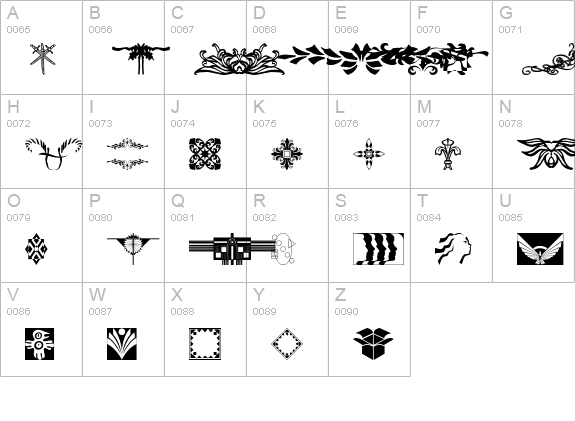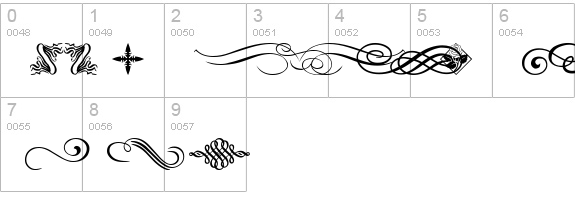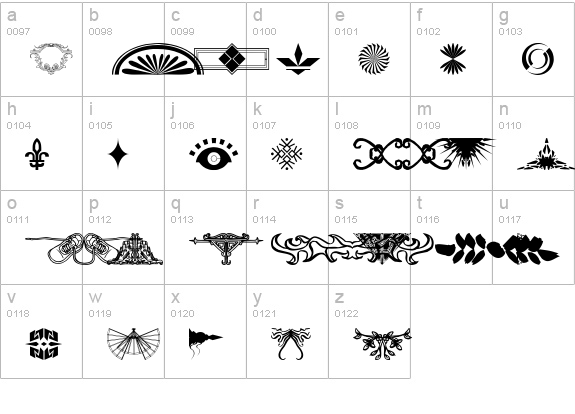
DesignerDing Font Details
Introducing DesignerDing font - a unique and stylish typeface that is perfect for adding a touch of creativity to your design projects. This font features a modern and playful design with a variety of decorative elements that will make your text stand out. DesignerDing font is not only visually appealing but also versatile, making it suitable for a wide range of design applications including logos, branding, posters, invitations, and more. With its bold and eye-catching appearance, DesignerDing font is sure to make a lasting impression on your audience. The best part? DesignerDing font is available for free download at FontsMarket.com. That's right, you can get your hands on this stunning font without breaking the bank. So why wait? Add a touch of flair to your designs with DesignerDing font today!